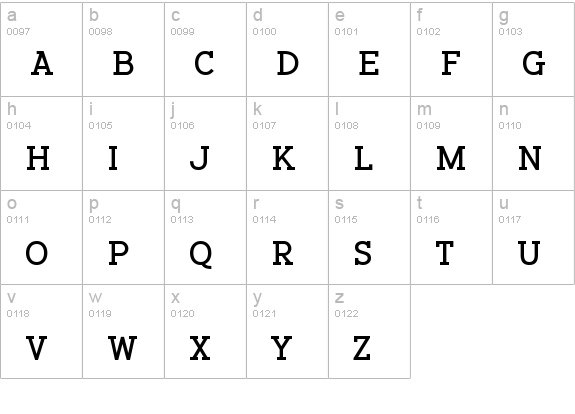
BacktalkSerif BTN SC Bold is a strong, high-contrast variant in the BacktalkSerif typeface family \xE2\x80\x94 well suited to headlines, attention-grabbing titles, and strong calls-to-action.
BacktalkSerif BTN SC Bold is a versatile and eye-catching font that captures attention with its bold and strong presence. Its unique design is a perfect blend of modernity and elegance, making it suitable for a wide range of creative projects. This font is equipped with distinctive serifs that add a touch of sophistication to any text. The bold weight of BacktalkSerif BTN SC Bold enhances its legibility, making it ideal for headlines, titles, and any other attention-grabbing elements. Its refined and well-defined letterforms ensure that every word stands out, delivering a powerful impact. The beauty of BacktalkSerif BTN SC Bold lies not only in its striking appearance but also in its versatility. It effortlessly adapts to various design styles, from contemporary to classic, adding a touch of professionalism and style. Whether you are creating a logo, branding materials, or a website, this font will bring your vision to life with its strong presence and impeccable charm. What's even better is that BacktalkSerif BTN SC Bold is freely available to download at FontsMarket.com. This means that you can easily access and use this incredible font in your projects without any limitations. Its availability ensures that you can add a touch of elegance and style to your designs without any hassle. So, if you are looking for a bold and versatile font that will make a lasting impression, BacktalkSerif BTN SC Bold is the perfect choice. Download it for free at FontsMarket.com and elevate your design projects to a whole new level.